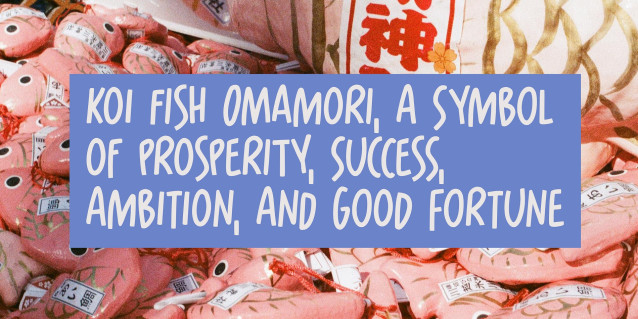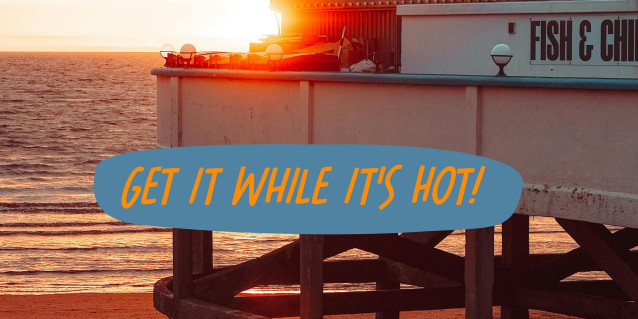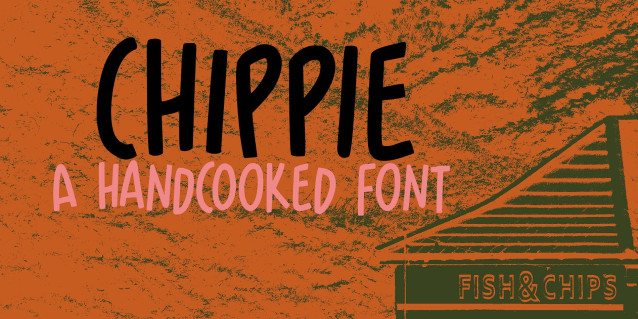
Chippie Font
Chippie Font is a handmade font. It’s a bit cheeky, a bit wobbly, but there’s nothing fishy about it. Use it for your book covers, products and quite possibly the menu for your Chippie!